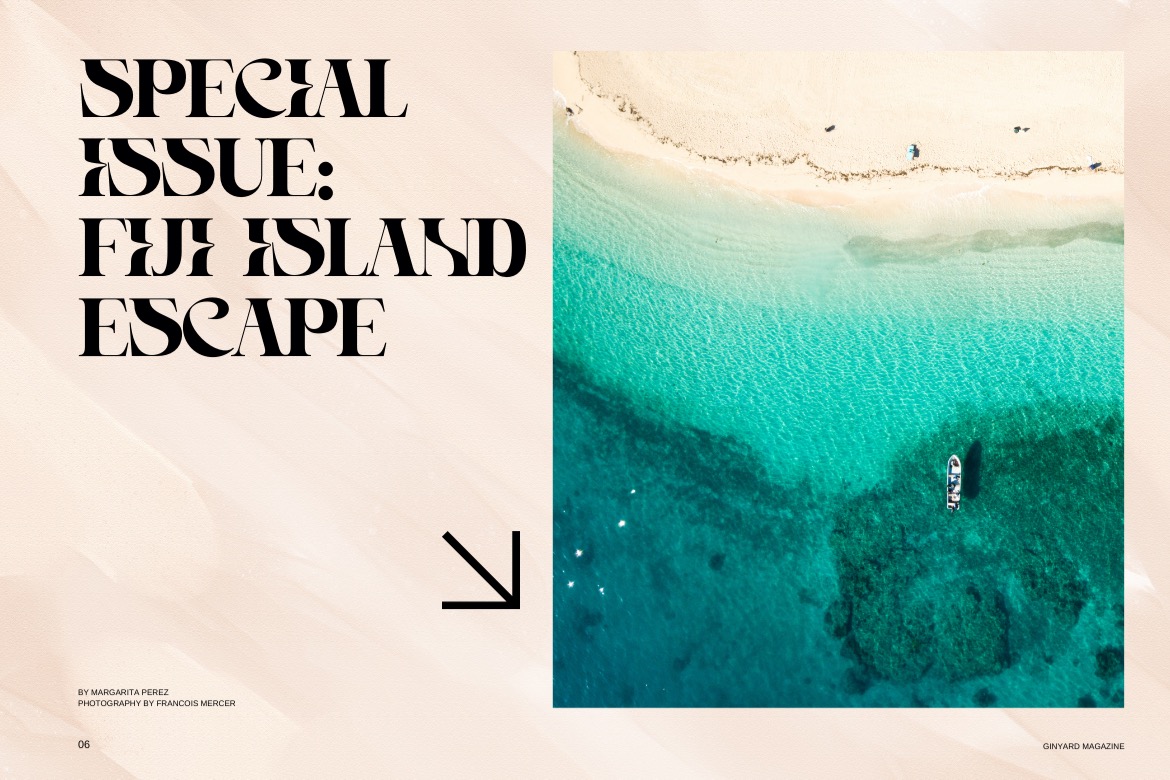
Ruigslay is a display serif designed to make a brand instantly recognizable—an expressive typographic signature that can carry a logo, headline, or key message with authority and charm.
Built on a bold, retro-inspired serif structure, Ruigslay blends classic elegance with a contemporary edge. Its sharp terminals, sculpted curves, and distinctive cut details create strong letterforms that feel premium and memorable—perfect when typography is meant to lead the visual system, not just support it.
This typeface shines for brands that want a refined vintage tone with modern clarity: boutique coffee and F&B labels, lifestyle and fashion, beauty and fragrance, creative studios, hospitality, editorial layouts, and curated product packaging. The personality it builds is confident, artistic, and slightly nostalgic—ideal for identities that want to feel crafted, tasteful, and bold without becoming loud. For consistent visuals, use Ruigslay as a primary display voice (logos, headlines, short statements), then pair it with a clean sans or a simple text serif for body copy. Take advantage of its OpenType alternates and ligatures to shape custom wordmarks and keep your typography looking intentional across print, packaging, and digital.
Ruigslay becomes a particularly strong choice when your identity needs a signature serif that reads clearly at large sizes—where character, contrast, and detail can do their best work—turning simple words into a recognizable brand asset.